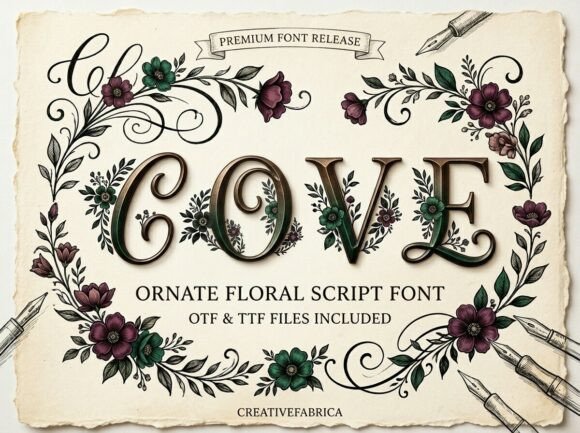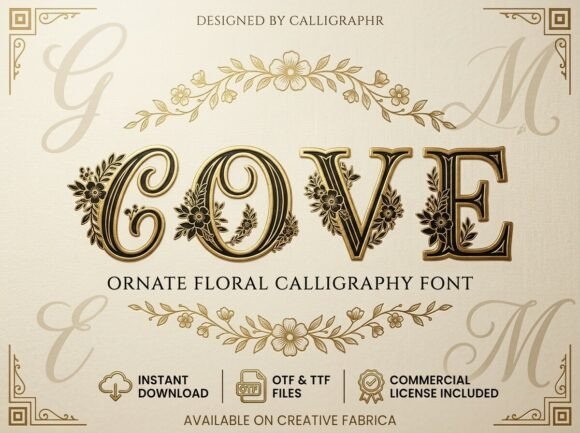
Introducing Cove Font: A Stunning Decorative Display Font
Are you tired of using the same old fonts for your designs? Do you want to make a statement and grab the attention of your audience? Look no further than Cove Font, a breathtaking decorative display font that’s sure to take your creative projects to the next level. In this article, we’ll dive into the features and benefits of Cove Font, and explore how it can elevate your designs.
Cove Font is a stunning decorative display font designed to be the center of attention. With its unique artistic elements and strong visual personality, this font is perfect for creators who want to break away from the ordinary. Whether you’re working on a bold headline, artistic logo, or creative packaging, Cove Font is the perfect choice. Its versatility and professional finish make it an excellent addition to any design project.
Use Cases for Cove Font
Cove Font is perfect for a variety of design projects, including:
- Headlines and Titles: Use Cove Font to create bold, eye-catching headlines that grab attention.
- Logos and Branding: Create a unique and memorable logo with Cove Font’s artistic and decorative elements.
- Packaging and Product Design: Add a touch of elegance and sophistication to your product packaging with Cove Font.
- Artistic and Creative Projects: Use Cove Font to add a decorative touch to your artistic and creative projects, such as posters, flyers, or brochures.
Why Choose Cove Font?
So, why should you choose Cove Font for your design projects? Here are just a few reasons:
- Unique and Artistic: Cove Font features unique artistic elements that will set your designs apart from the rest.
- Versatile: Cove Font is versatile enough for a variety of design projects, from bold headlines to artistic logos.
- Professional Finish: Despite its decorative nature, Cove Font maintains a professional and polished finish that’s perfect for any design project.
In conclusion, Cove Font is a stunning decorative display font that’s perfect for creators who want to make a statement. With its unique artistic elements, strong visual personality, and versatility, Cove Font is an excellent addition to any design project. Whether you’re working on a bold headline, artistic logo, or creative packaging, Cove Font is sure to elevate your designs and grab the attention of your audience.